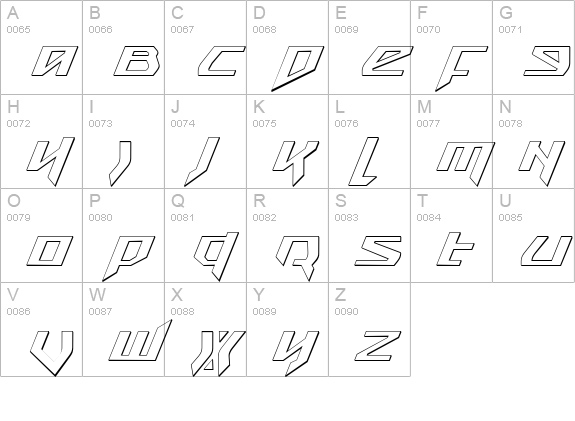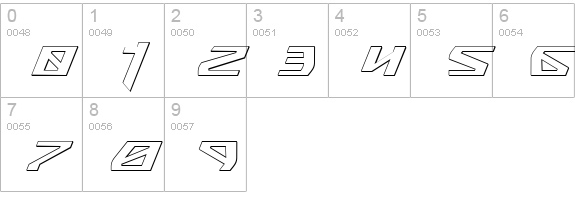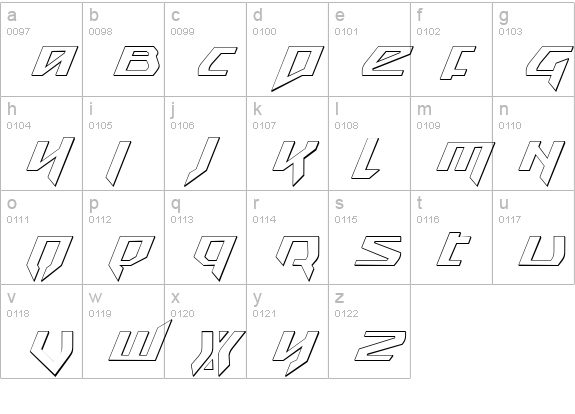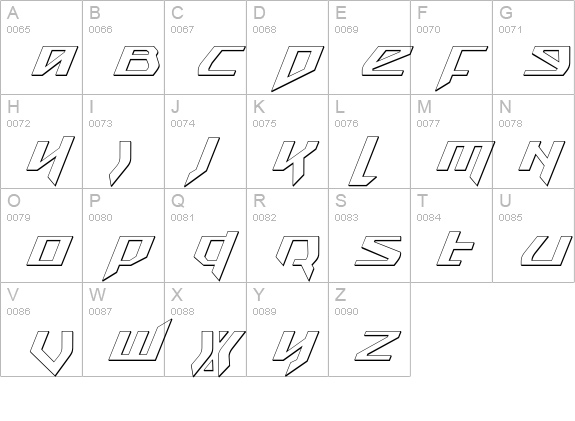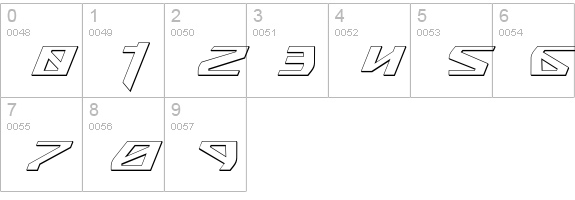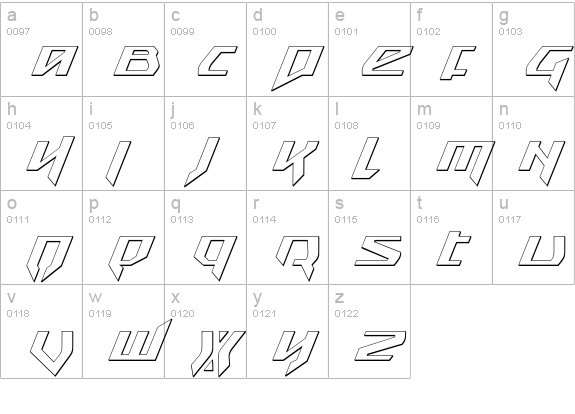
Snubfighter 3D Italic is a distinctive, italic variant in the Snubfighter typeface family \xE2\x80\x94 well suited to design and typography projects.
Snubfighter 3D Italic font is a sleek and modern typeface that exudes a sense of futuristic elegance. Its sharp angles and three-dimensional effect make it perfect for adding a touch of sophistication to any design project. Whether you're crafting a logo, poster, or website, Snubfighter 3D Italic font will take your creations to the next level. And the best part? This incredible font is available for free download at FontsMarket.com. Don't miss out on the opportunity to enhance your designs with this unique and eye-catching typeface. Download Snubfighter 3D Italic font today and let your creativity soar!